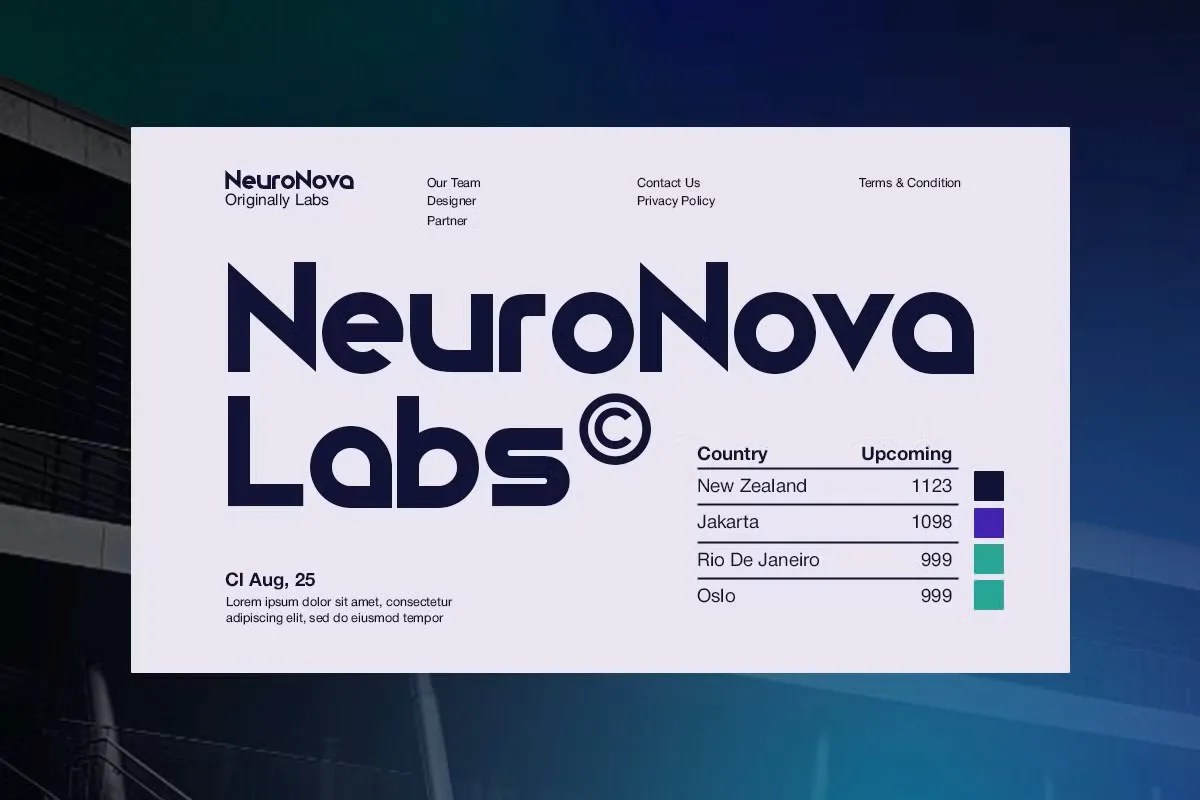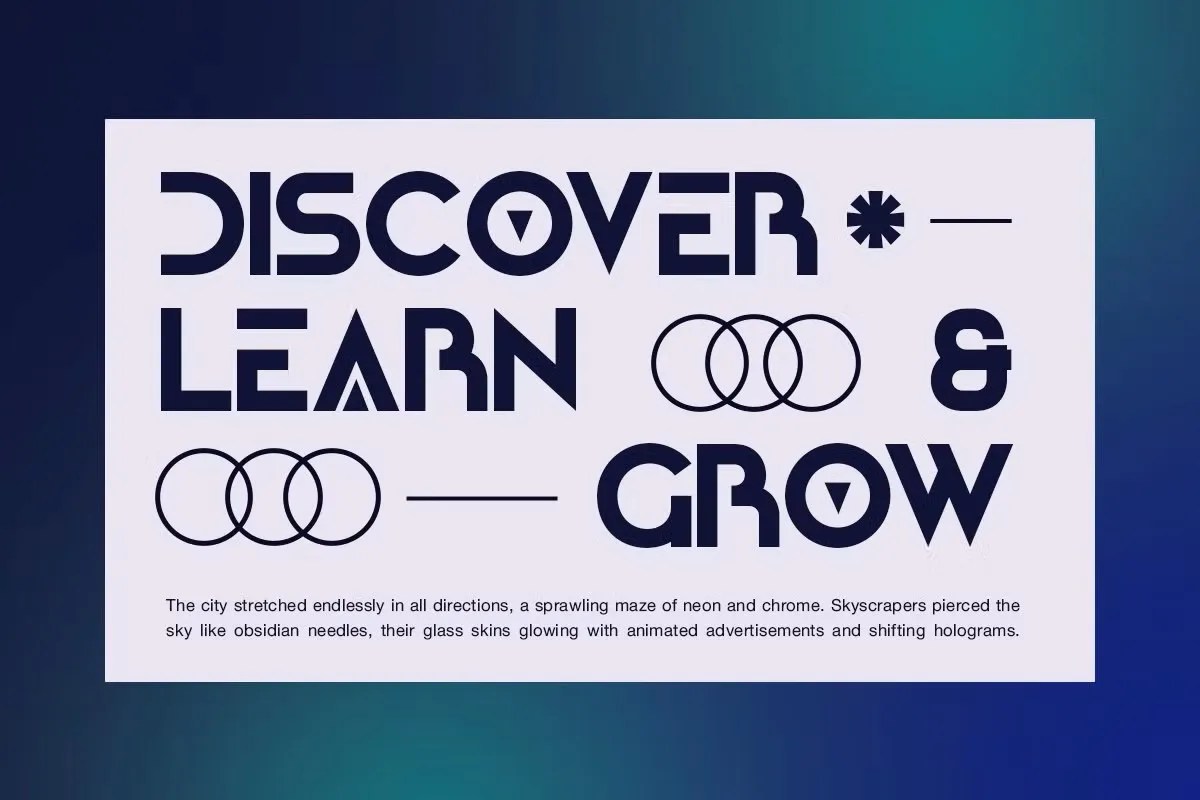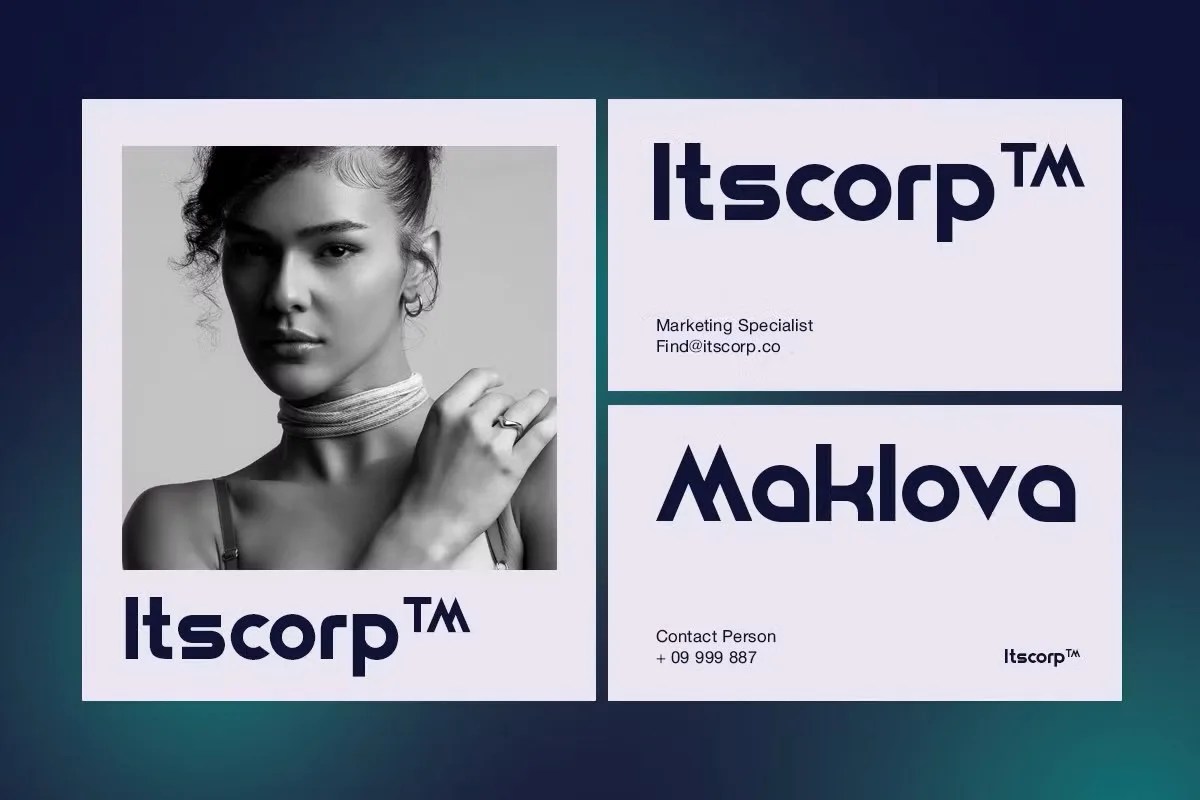
Negan by Pandeka Studio. This is an unapologetically bold sans serif font designed for maximum visual impact. Its strong, condensed letterforms command immediate attention from any viewer. The font projects a confident and assertive personality. Negan is the perfect tool for designs that need to be seen and heard, leaving a lasting and unforgettable impression.
This font is a dominant force in any creative layout. Specifically, it is an exceptional choice for movie posters, especially for the action and thriller genres. It grabs attention from a distance. Furthermore, this bold sans serif font works incredibly well for modern athletic or automotive branding. It conveys a sense of power, speed, and precision. Use it for magazine headlines that need to compete with strong imagery on the page, or for event promotions that need to create a sense of excitement and urgency.
• Assertive and bold sans serif style
• Features strong, condensed letterforms
• Ideal for headline, posters, and athletic branding
• Delivers maximum visual impact
Negan